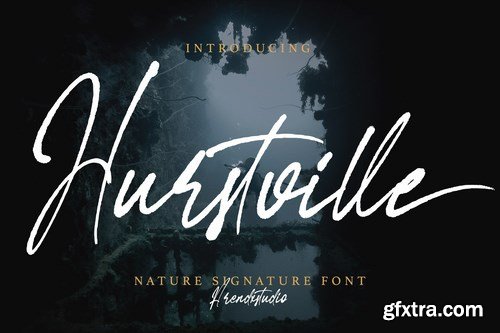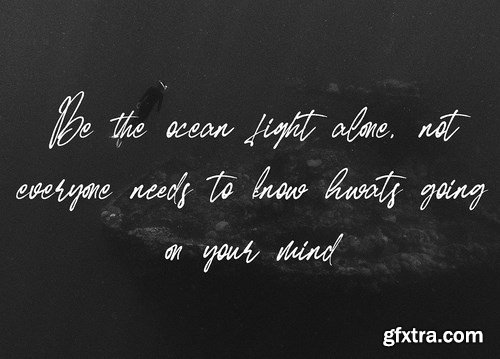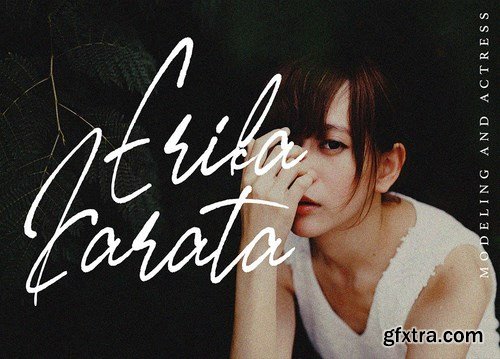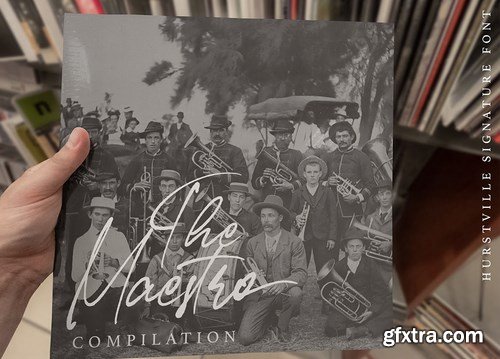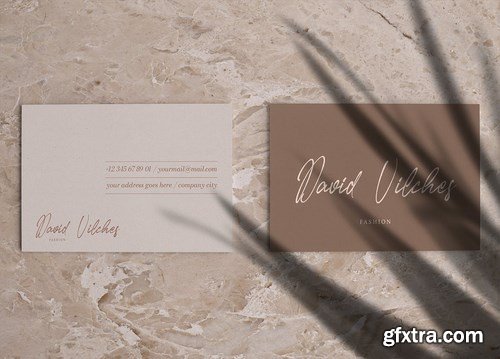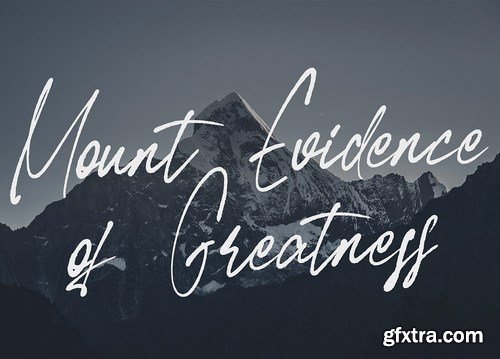
Hurstville - Brush Signature Font with a natural & stylish flow. This collection of scripts is perfect for personal branding. this works well for many applications. Everything from personal branding & wedding invitations to advertising could benefit from this collection of signature fonts